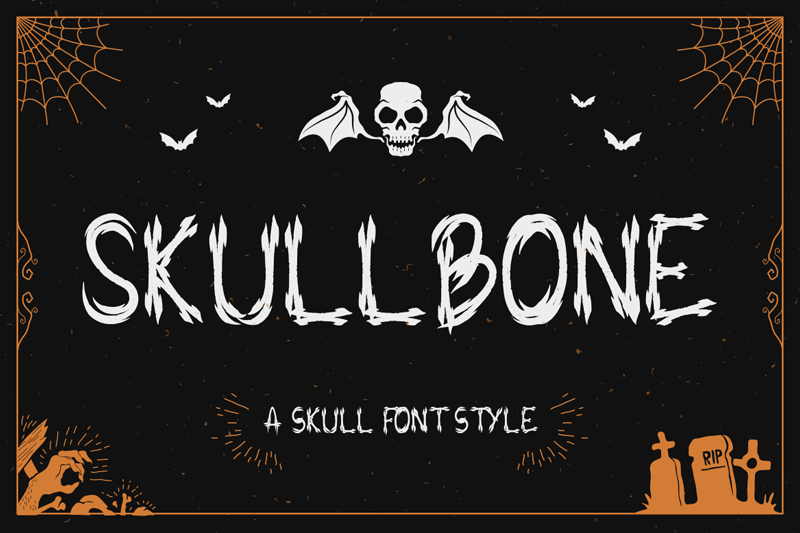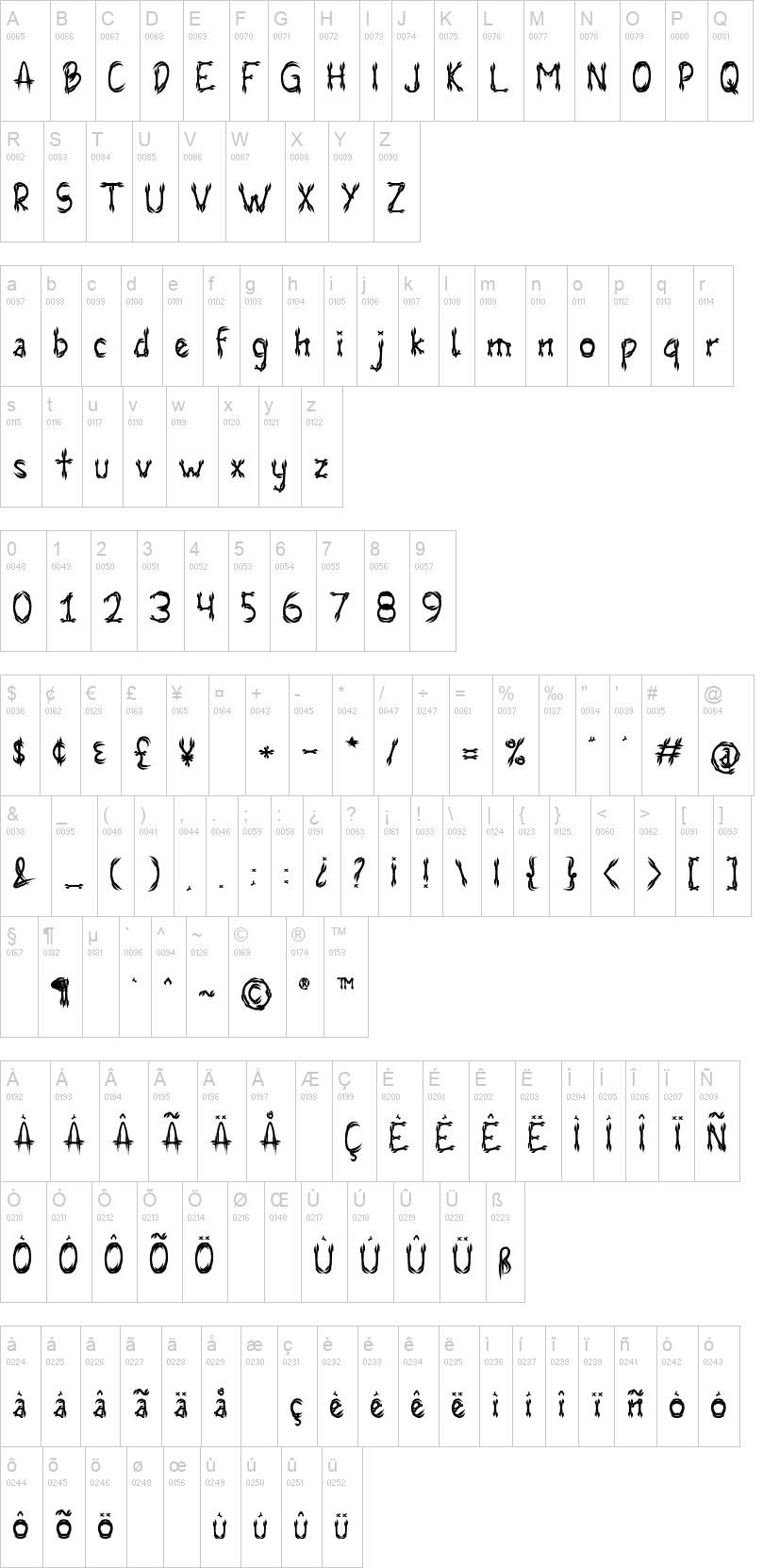
Note of the authorSkullbone is a cool and creepy decorative font.
Add it confidently to your spooky creations and let yourself be amazed by the outcome generated.